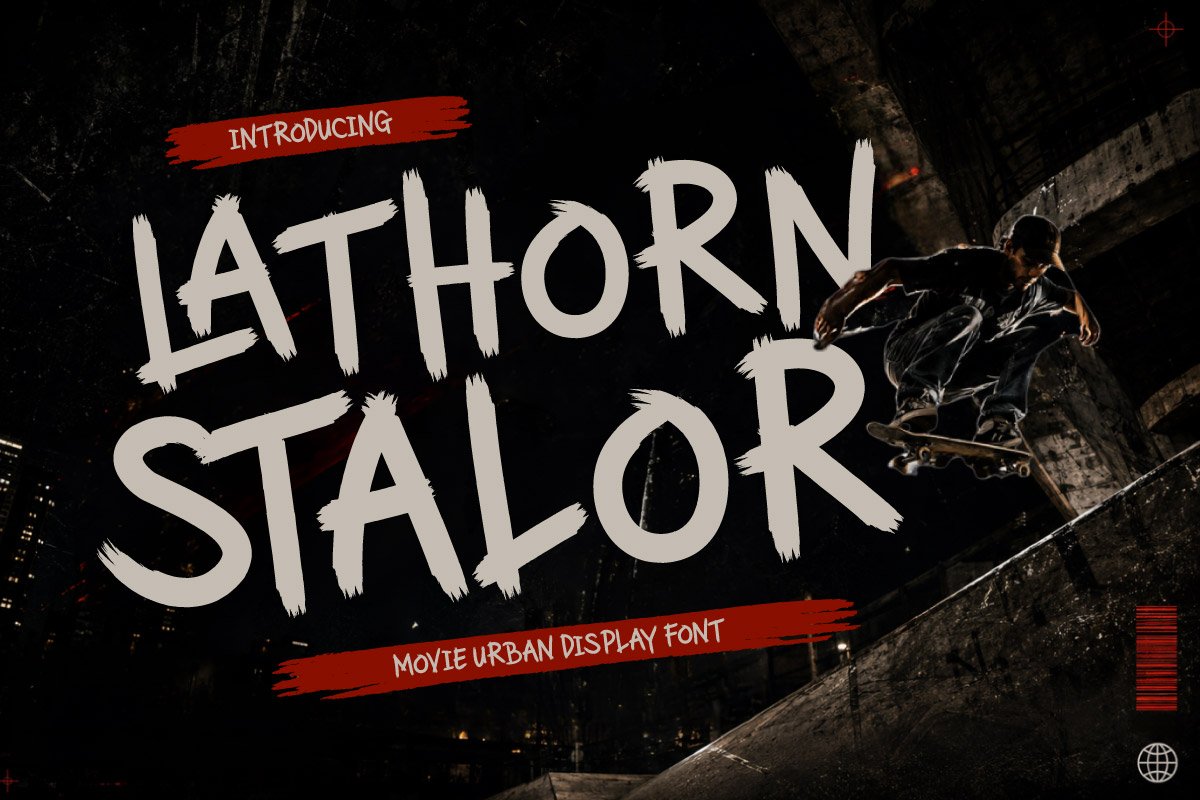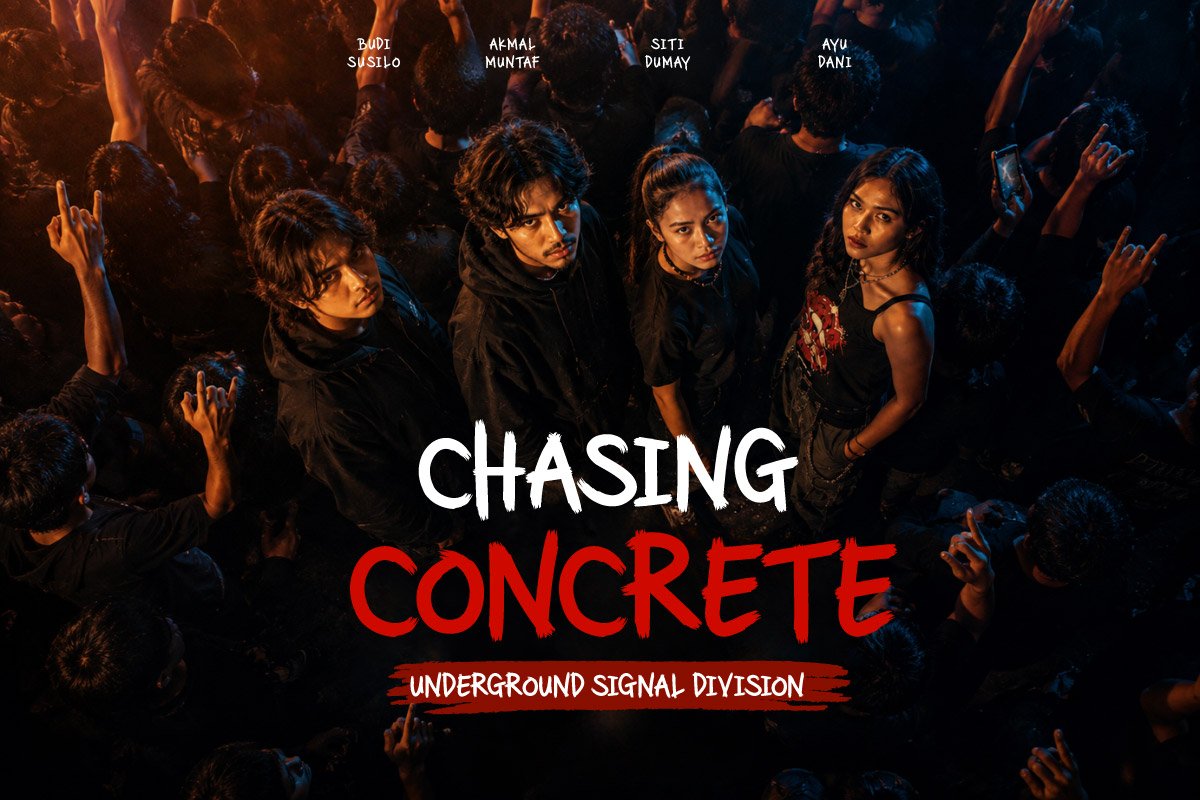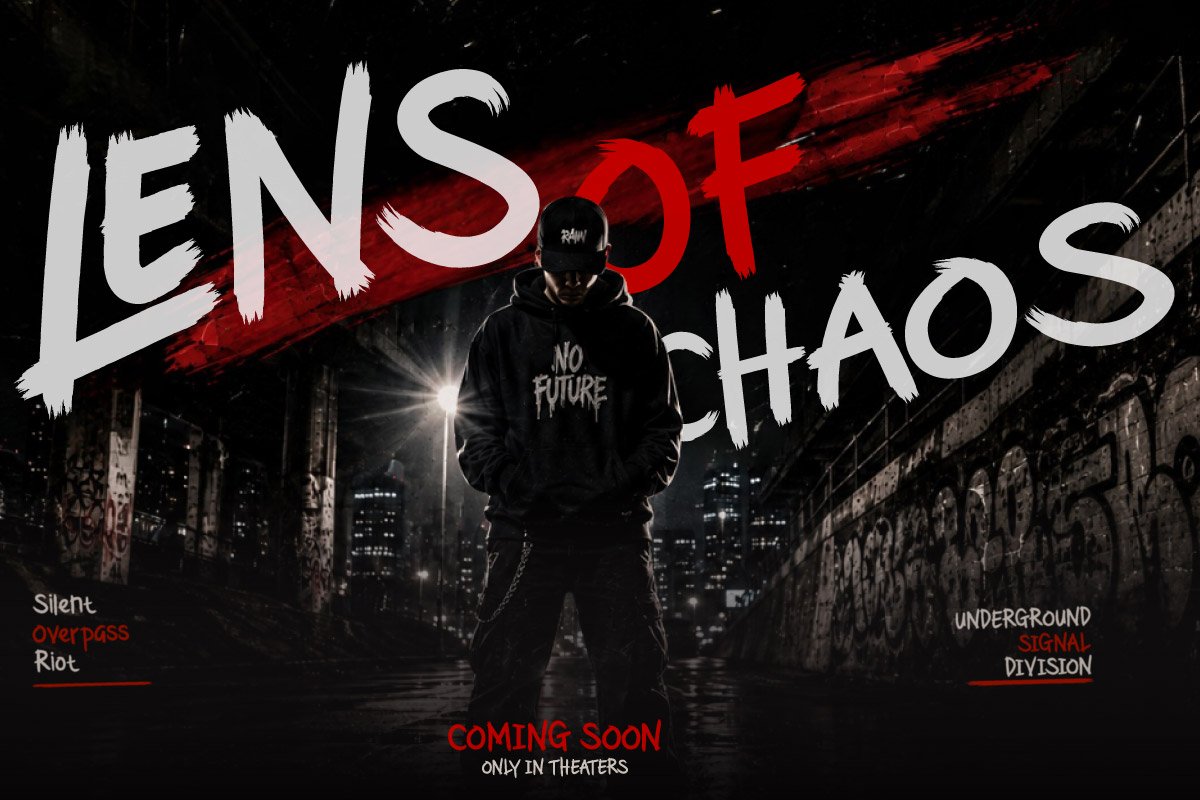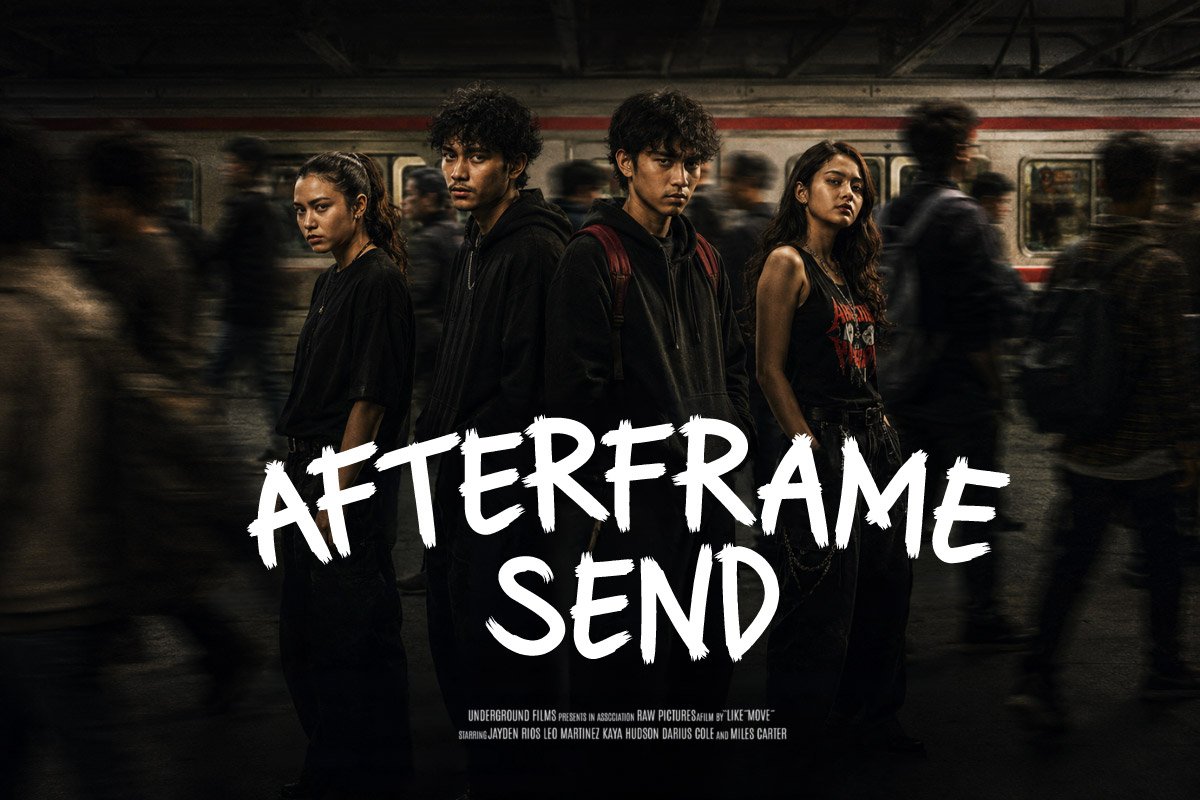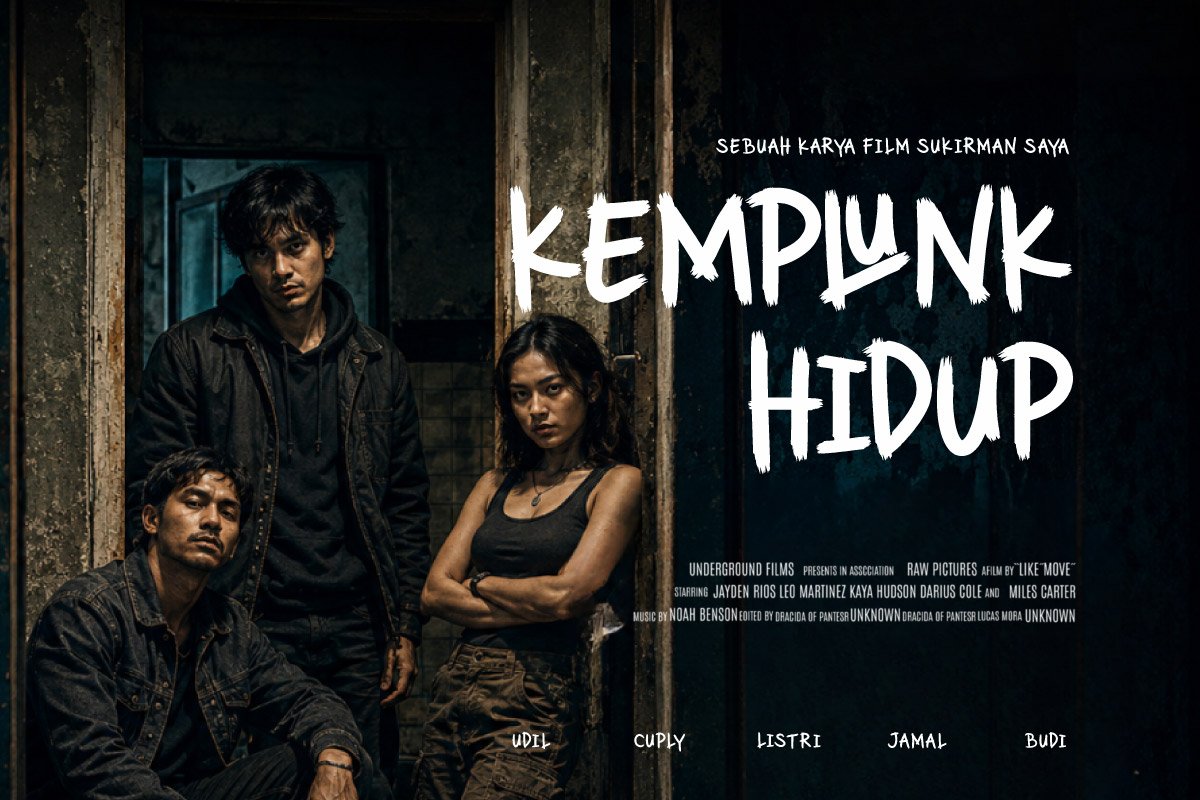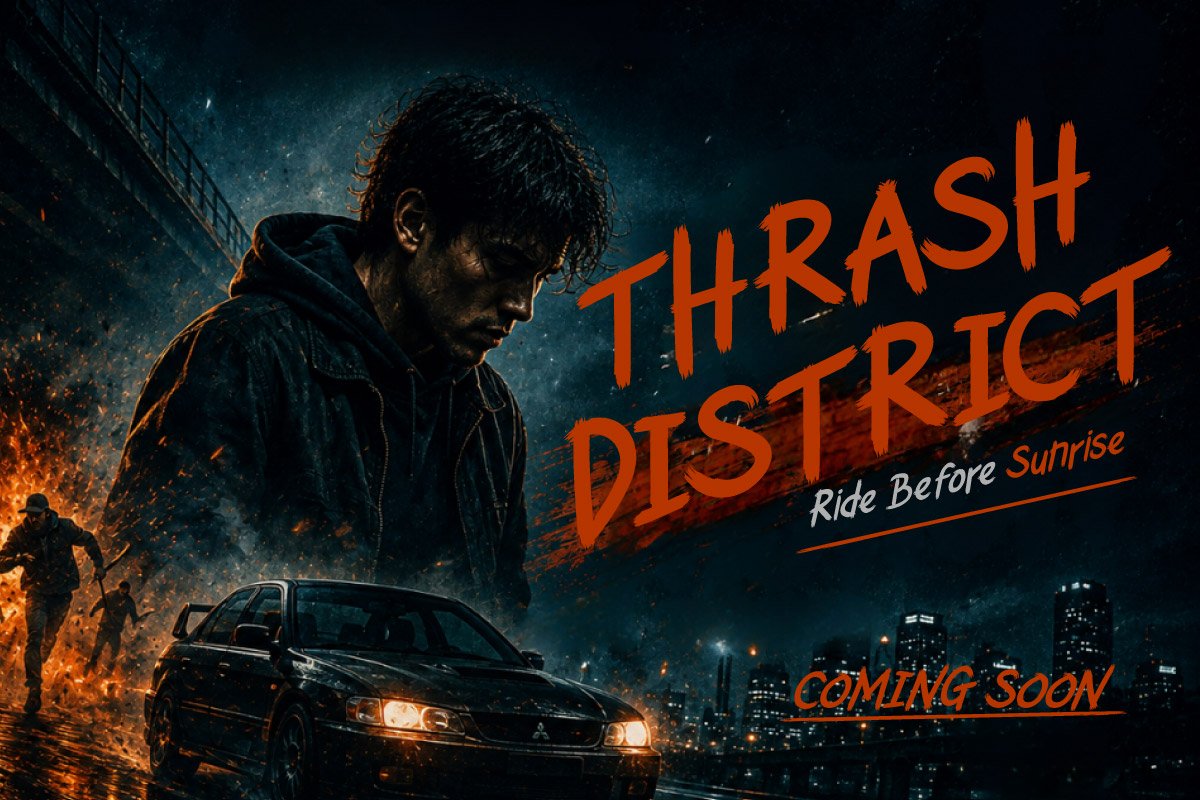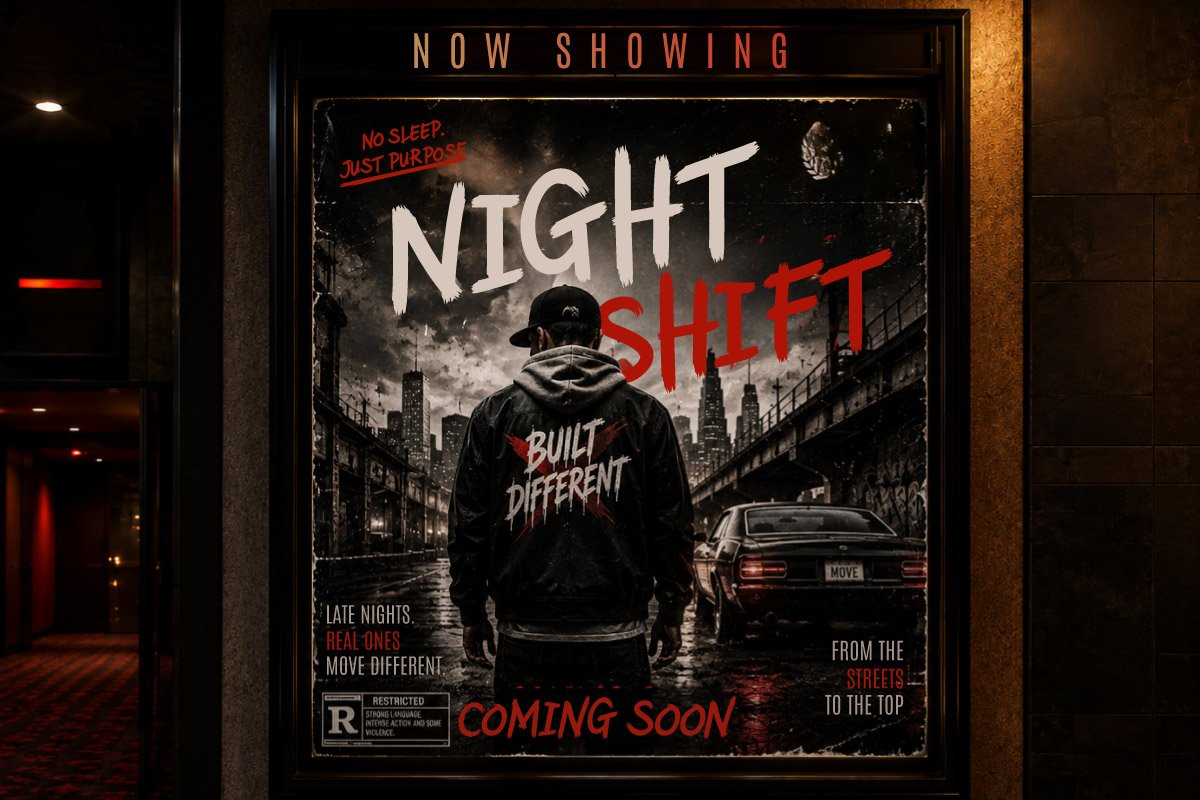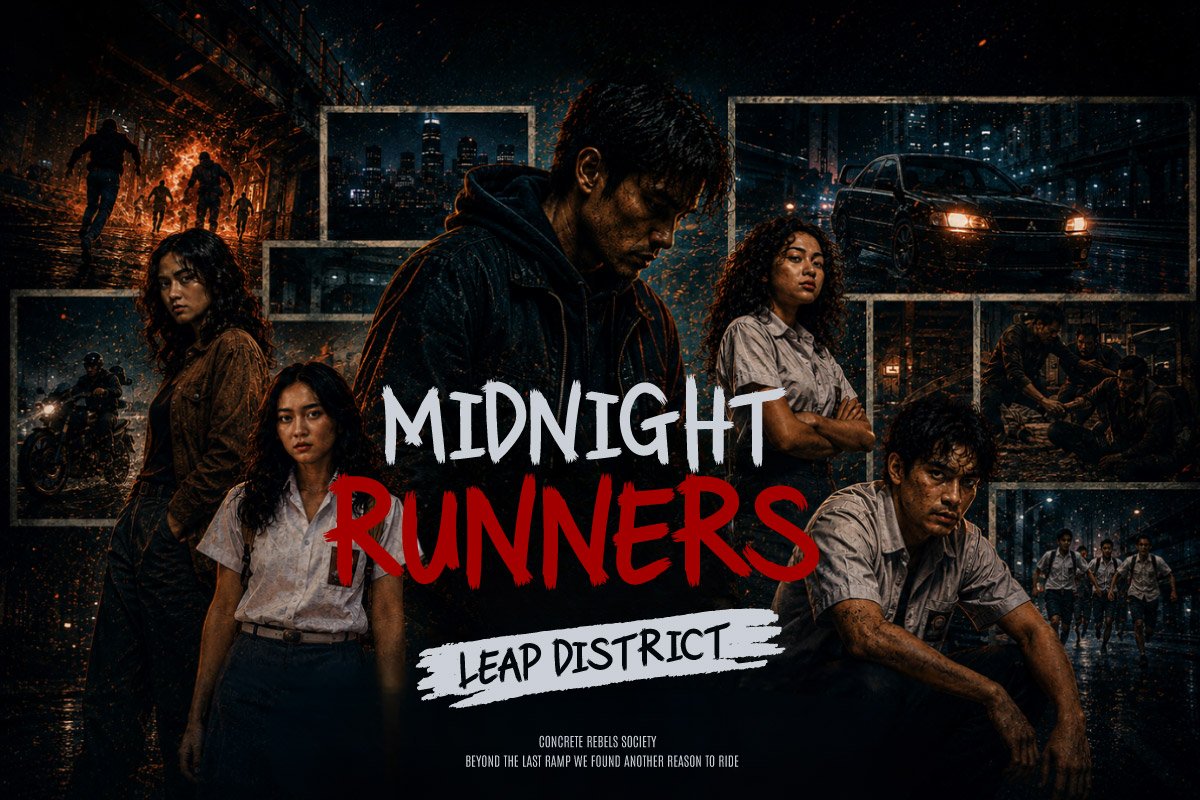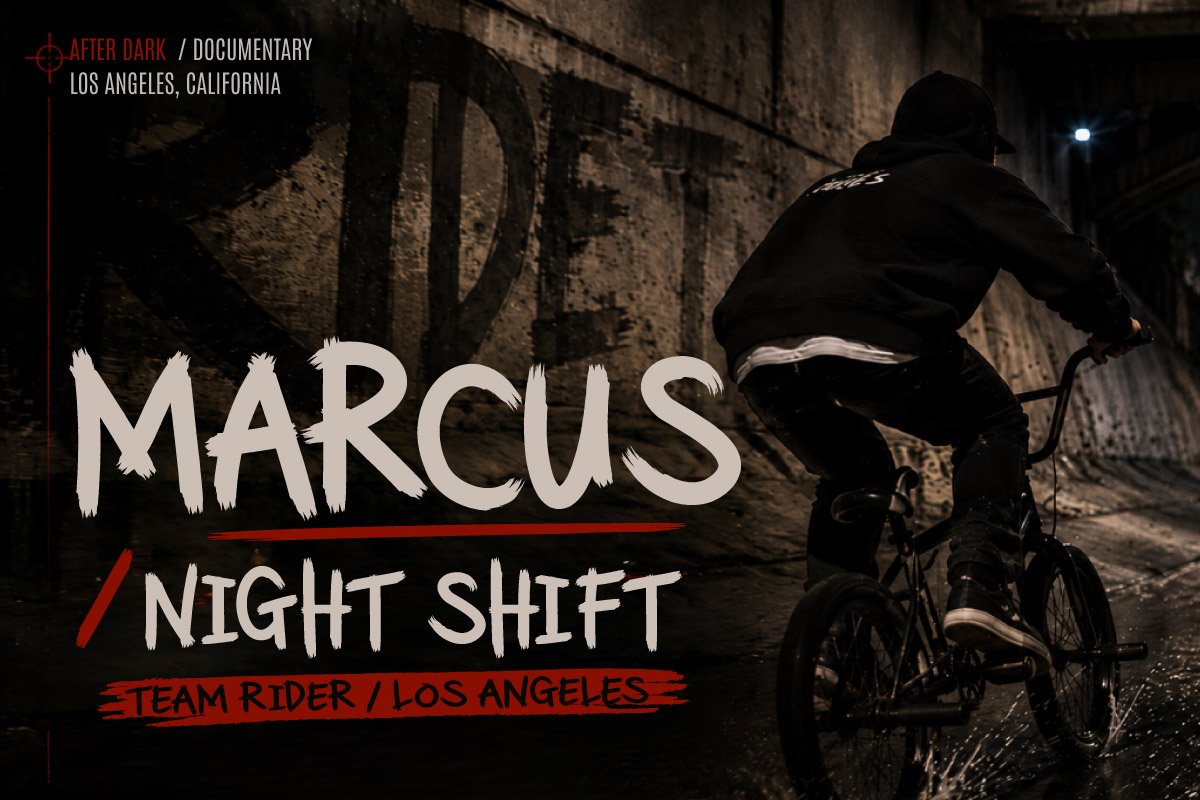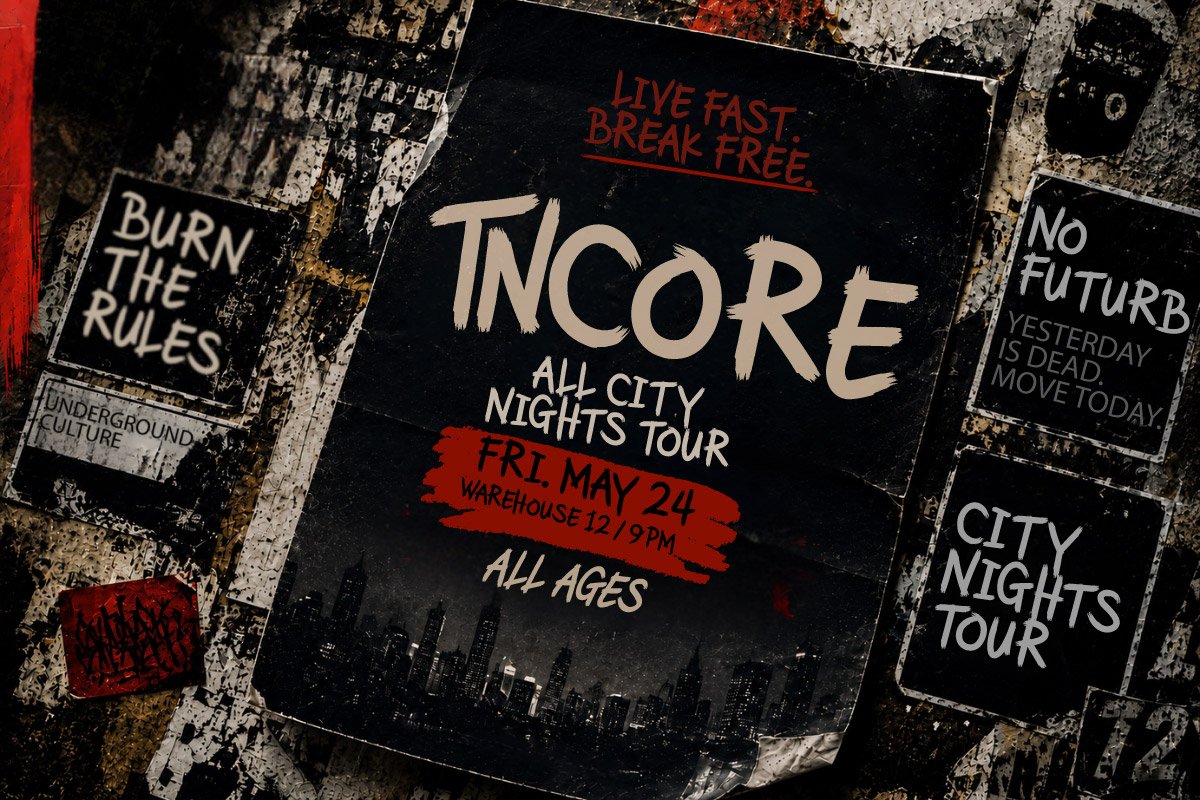
- Lathron Stalor – Movie Urban Font
Lathron Stalor – Movie Urban Font is a bold and raw display typeface designed to bring an authentic urban attitude to your creative projects. Inspired by underground cinema, street culture, extreme sports, and action-driven visuals, this font features expressive brush strokes and an energetic handcrafted character that instantly grabs attention.
Perfect for movie posters, film titles, action campaigns, urban branding, streetwear graphics, music visuals, trailer titles, event posters, and cinematic promotions. Lathron Stalor works especially well for projects that need a gritty, rebellious, and high-impact visual identity.
Whether you’re designing an underground film poster, extreme sports documentary, street culture campaign, or dramatic title sequence, Lathron Stalor adds a distinctive handwritten edge that helps your typography stand out.